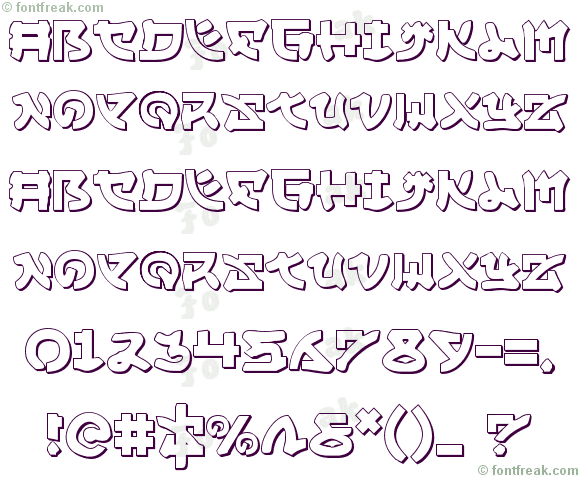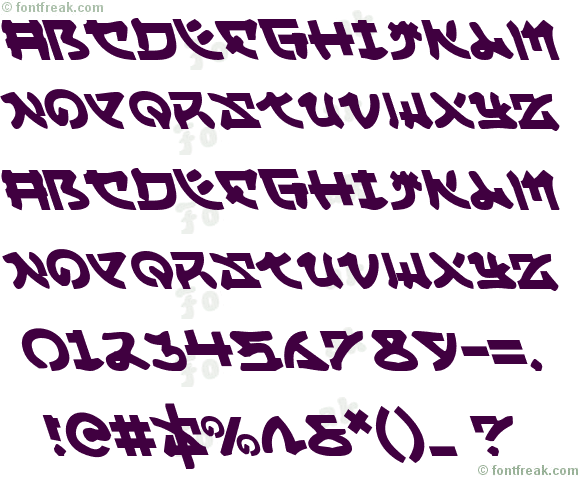
Yama Moto Leftalic
Yama Moto Academy
Yama Moto Italic
Yama Moto
Yama Moto 3D
Yama Moto Condensed Italic
Yama Moto Condensed 3D
Yama Moto Condensed
The Yamamoto font by Iconian Fonts is a striking display typeface that captures attention with its unique visual characteristics. This font falls into the decorative category, featuring a bold, condensed design that makes it suitable for a variety of creative applications. The strokes are thick and uniform, giving it a sturdy presence, while the playful, rounded forms add a whimsical touch. The italic style enhances its dynamic feel, making it ideal for designs that require a sense of movement and flair.
With its distinctive appearance, the Yamamoto font is perfect for use cases such as movie posters, where it can convey excitement and energy. It also works well for restaurant menus, providing a modern yet playful aesthetic that can attract diners. Additionally, this font can enhance branding materials for small businesses, helping to create memorable logos and promotional content. Graphic designers will find the Yamamoto font particularly appealing for creative projects, as its unique style allows for a wide range of expressive applications.
What sets the Yamamoto font apart is its ability to blend fun with functionality. It stands out in a crowded font landscape by offering a playful yet professional look, making it an excellent choice for anyone seeking to make a memorable impression. Whether for commercial use or personal projects, the Yamamoto font is a versatile tool that can elevate any design.